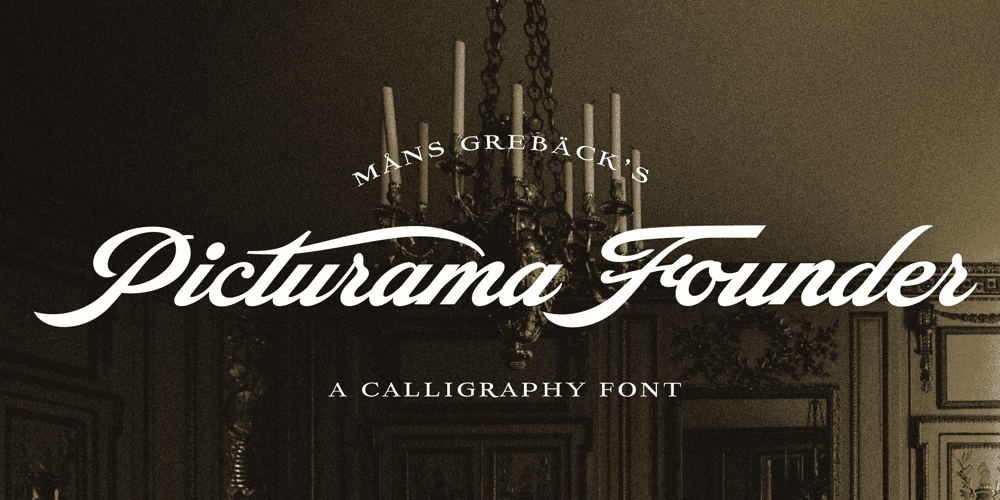
Picturama Founder Font Family was designed by Måns Grebäck and published by Mans Greback. Picturama Founder contains 8 styles and family package options. Picturama Founder is a beautiful script font that elegantly bridges the gap between time-honored formality and contemporary innovation. Every curve and connection in this formal calligraphy type speaks of finesse, flowing with an unmatched grace reminiscent of vintage labels or classic vinyl covers. Yet, there’s a modern twist that sets it apart: its bold stance and innovative touches redefine what we expect from formal script.